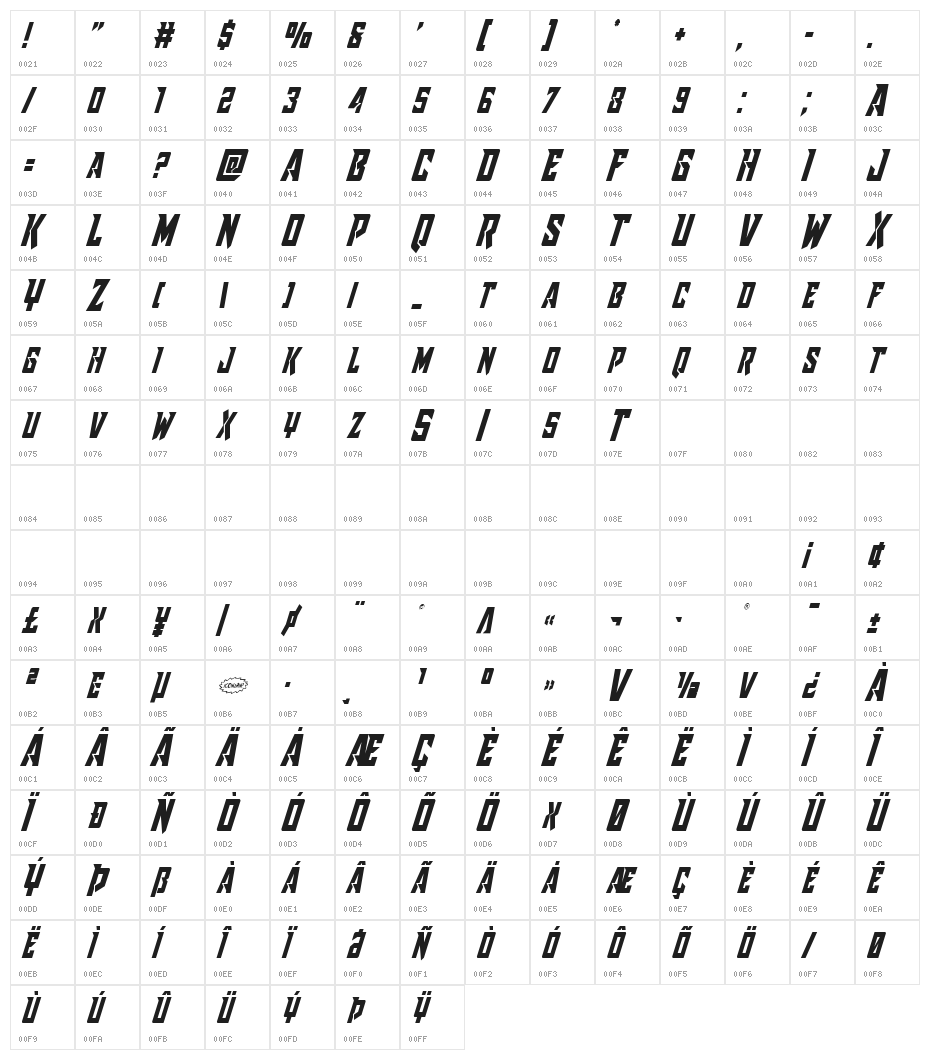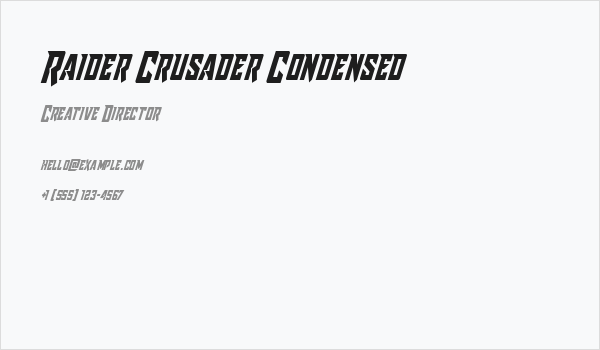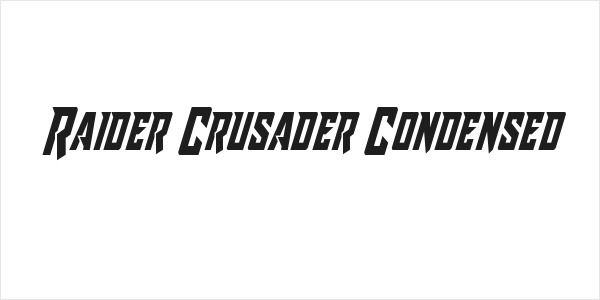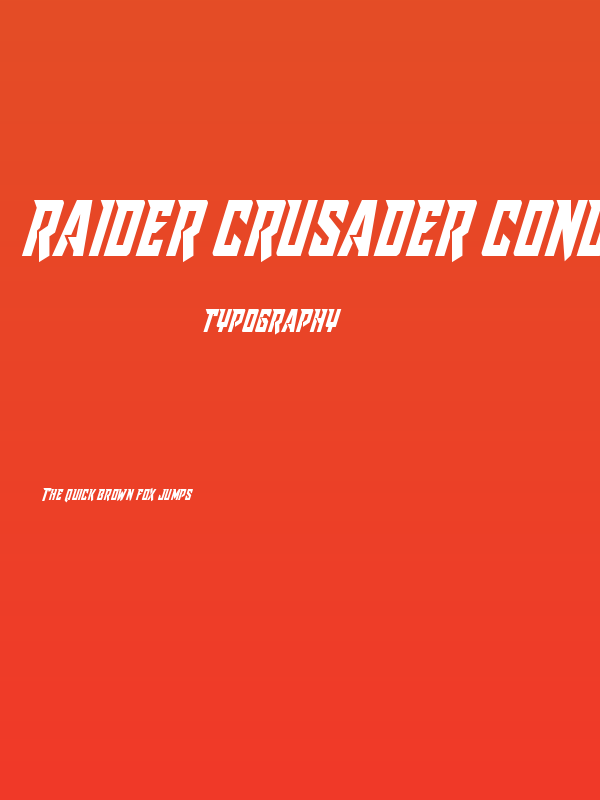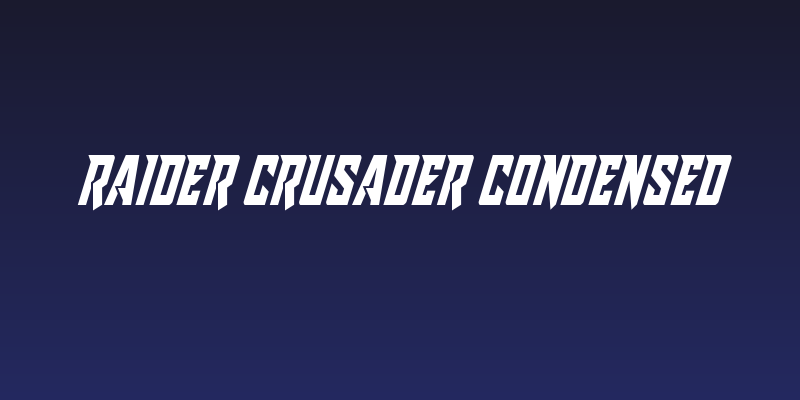
Raider Crusader Condensed Font
Raider Crusader Condensed Description
This font features a bold and dynamic design with sharp, angular lines that create a sense of movement and energy. The condensed style enhances its impact, making it ideal for attention-grabbing headlines and titles. Each character is uniquely crafted with a futuristic and edgy appearance, emphasizing a strong geometric structure. The uppercase and lowercase letters maintain a consistent style, while the numerals and special characters complement the overall aesthetic. This font's distinctive look makes it suitable for projects that require a modern and assertive visual presence.